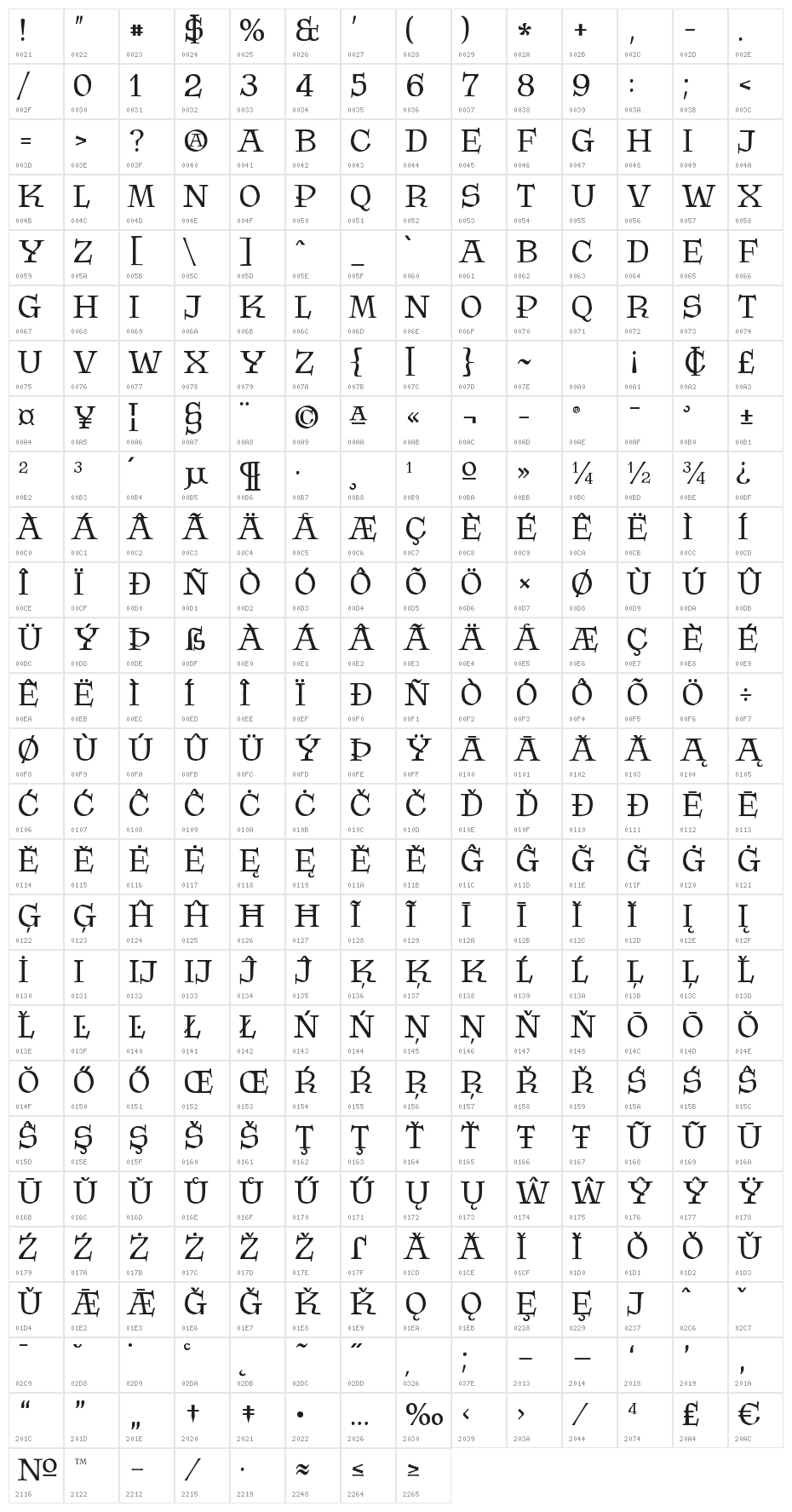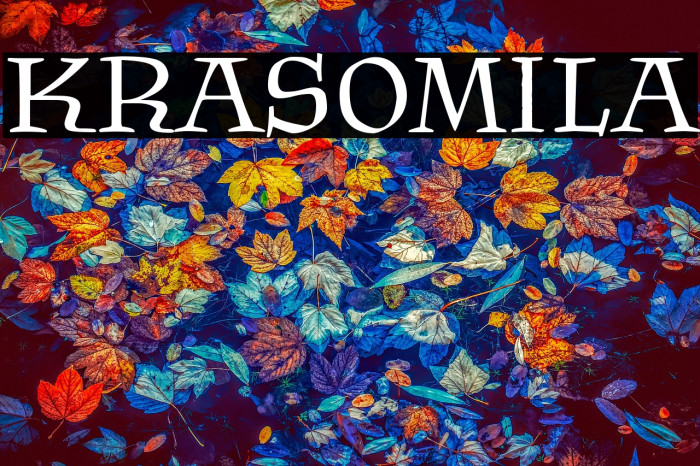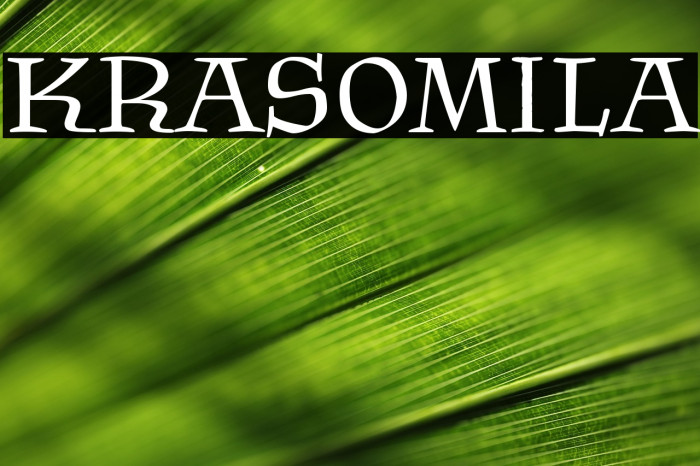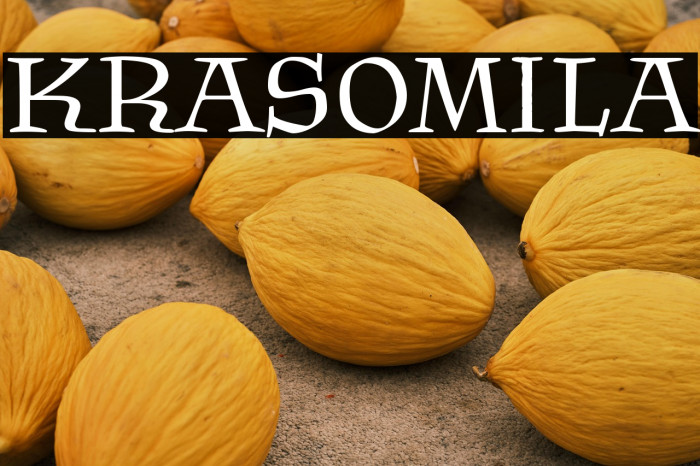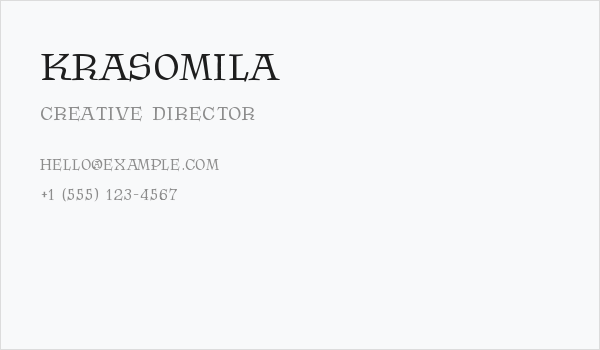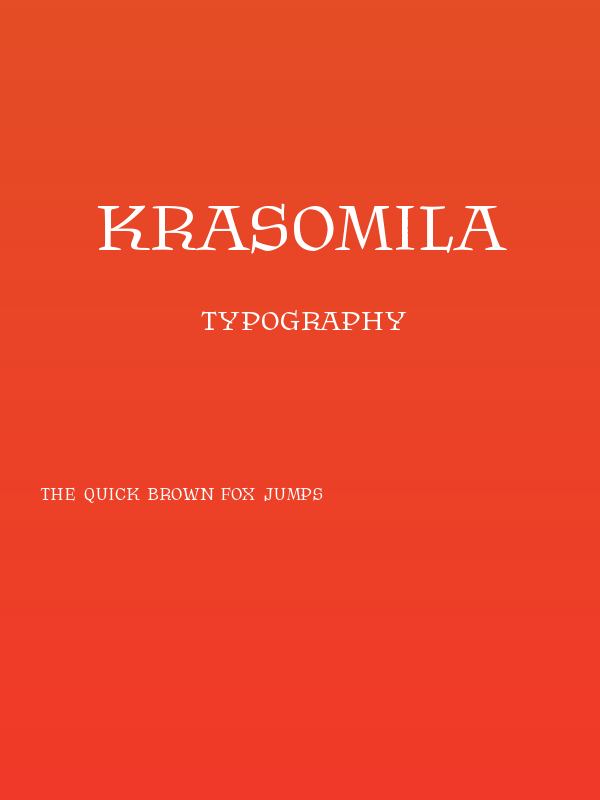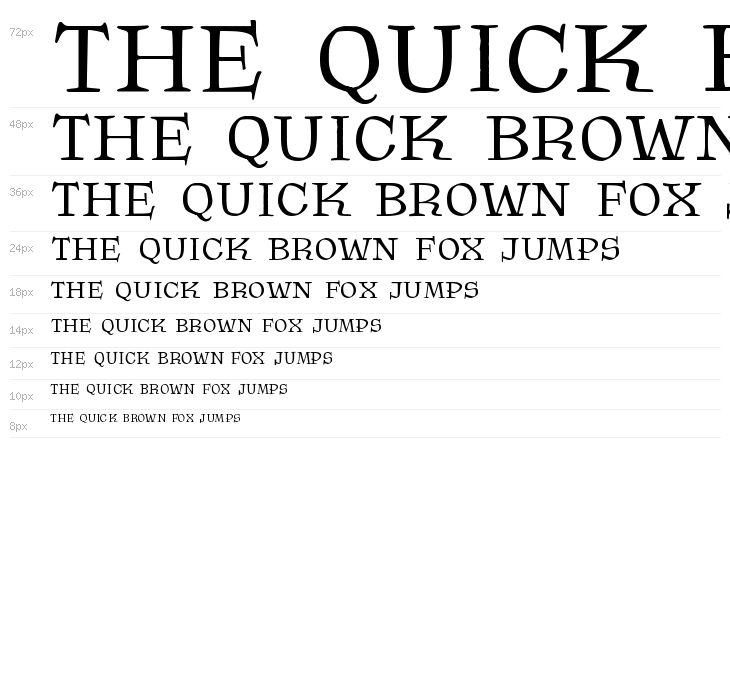
Krasomila Font
Krasomila Description
This font features a classic serif style with distinct, sharp serifs that give it a traditional and authoritative appearance. The characters are well-defined with a moderate contrast between thick and thin strokes, enhancing readability while maintaining elegance. The uppercase letters exhibit a formal structure, while the lowercase letters maintain a consistent style that complements the overall design. Numbers are clear and balanced, making them suitable for both text and numerical data. The special characters are crafted with attention to detail, ensuring they blend seamlessly with the rest of the font. This font is ideal for projects that require a touch of sophistication and timelessness.
Overall StyleClassic
Use CaseHeadlines, Body text, Logos
Proposed ProjectsIdeal for book covers, formal invitations, editorial layouts, and branding materials that require a classic touch.